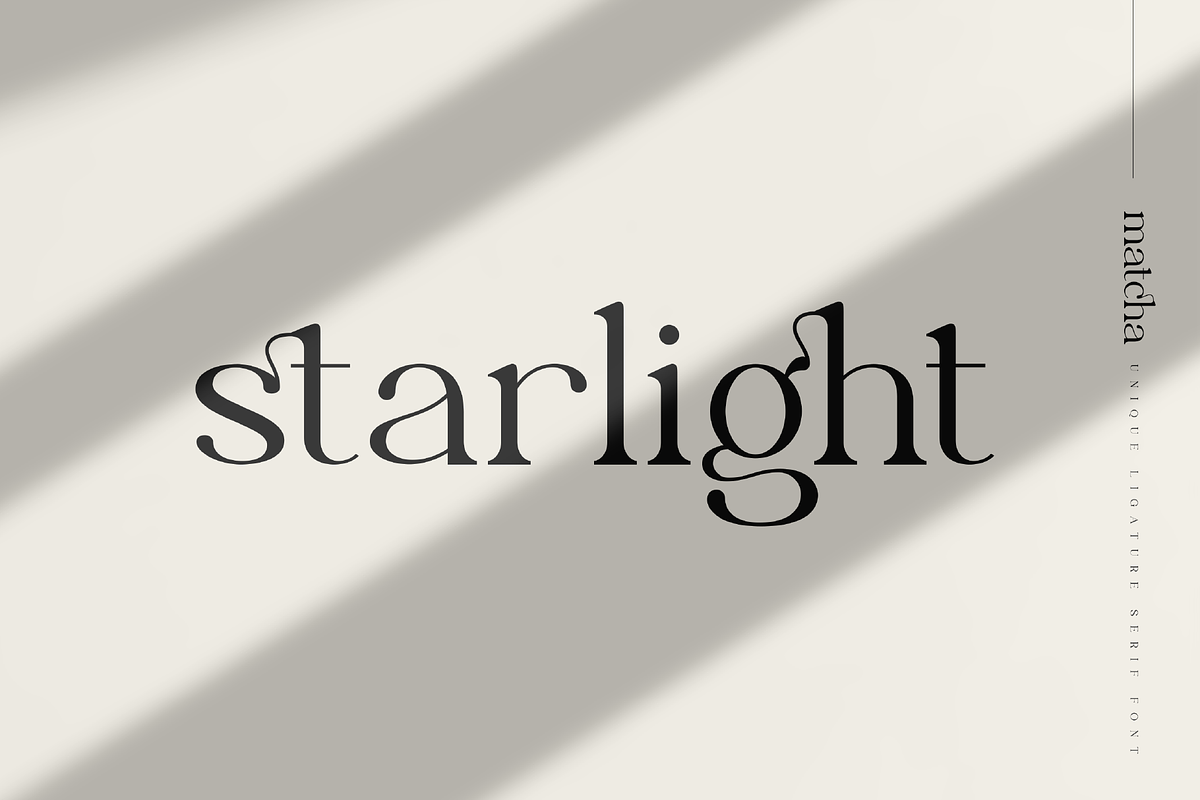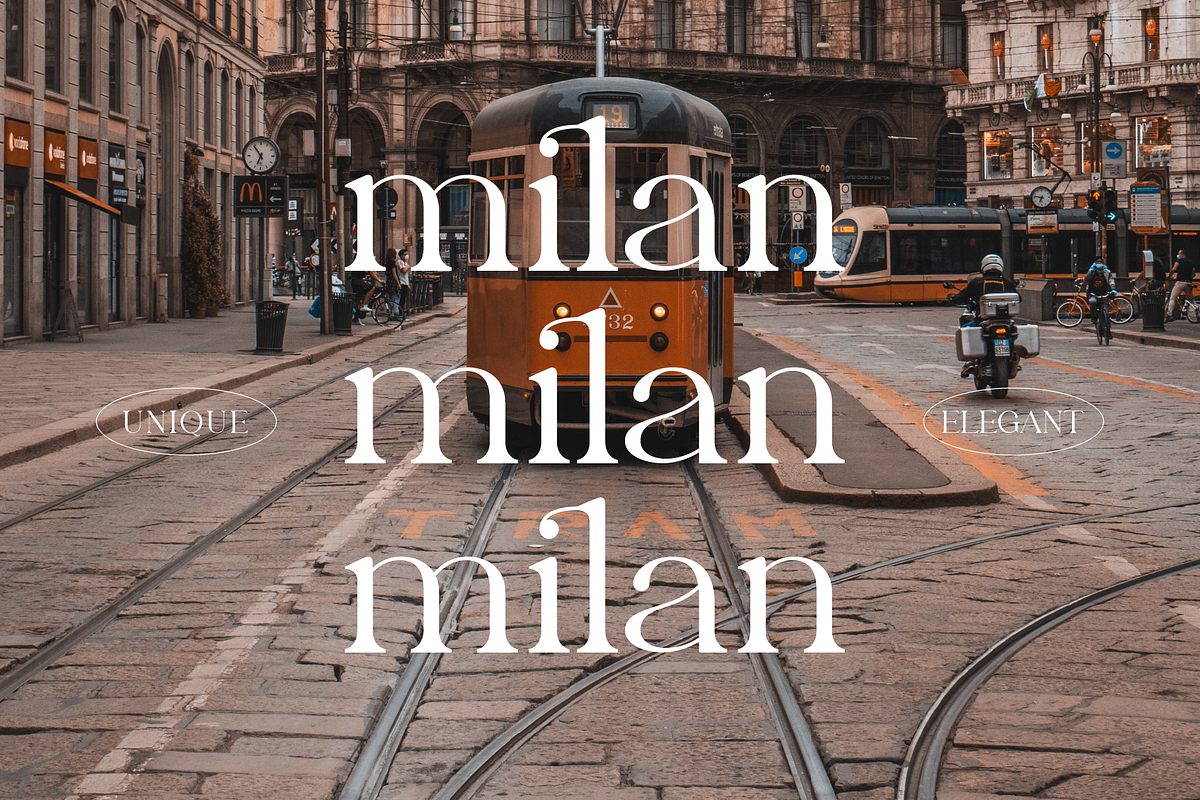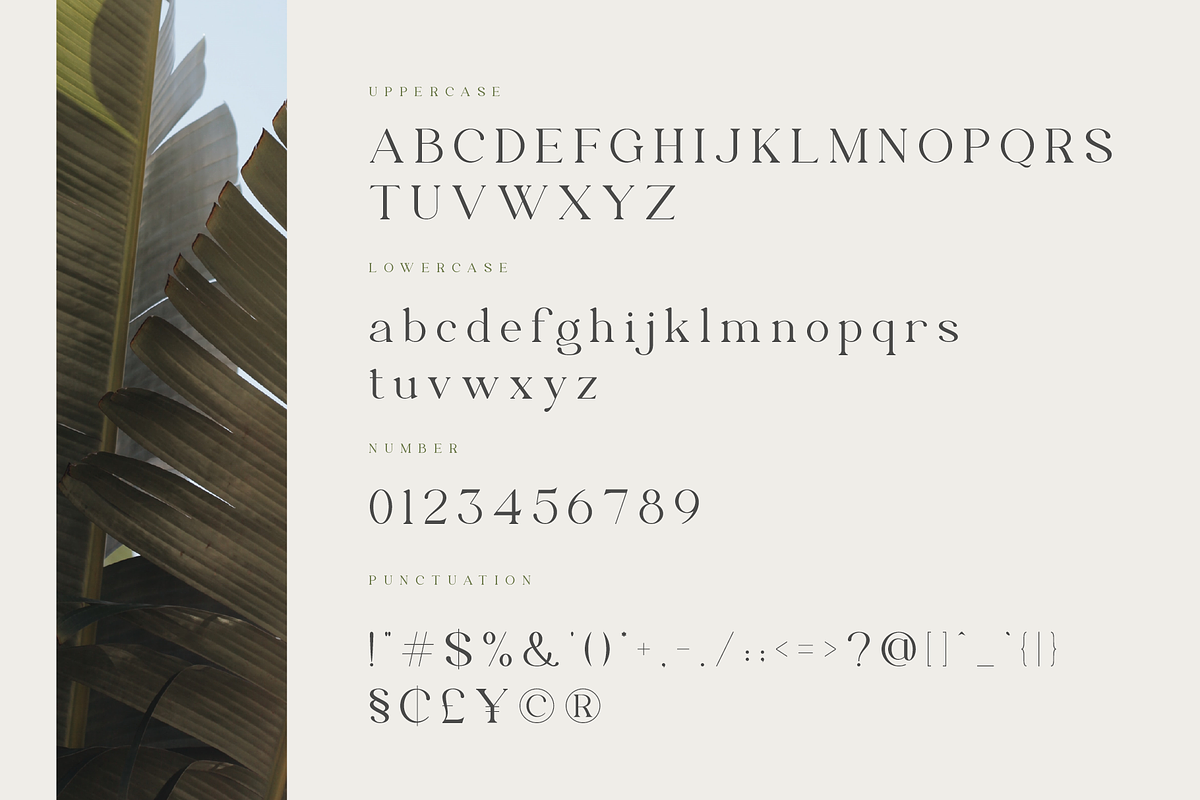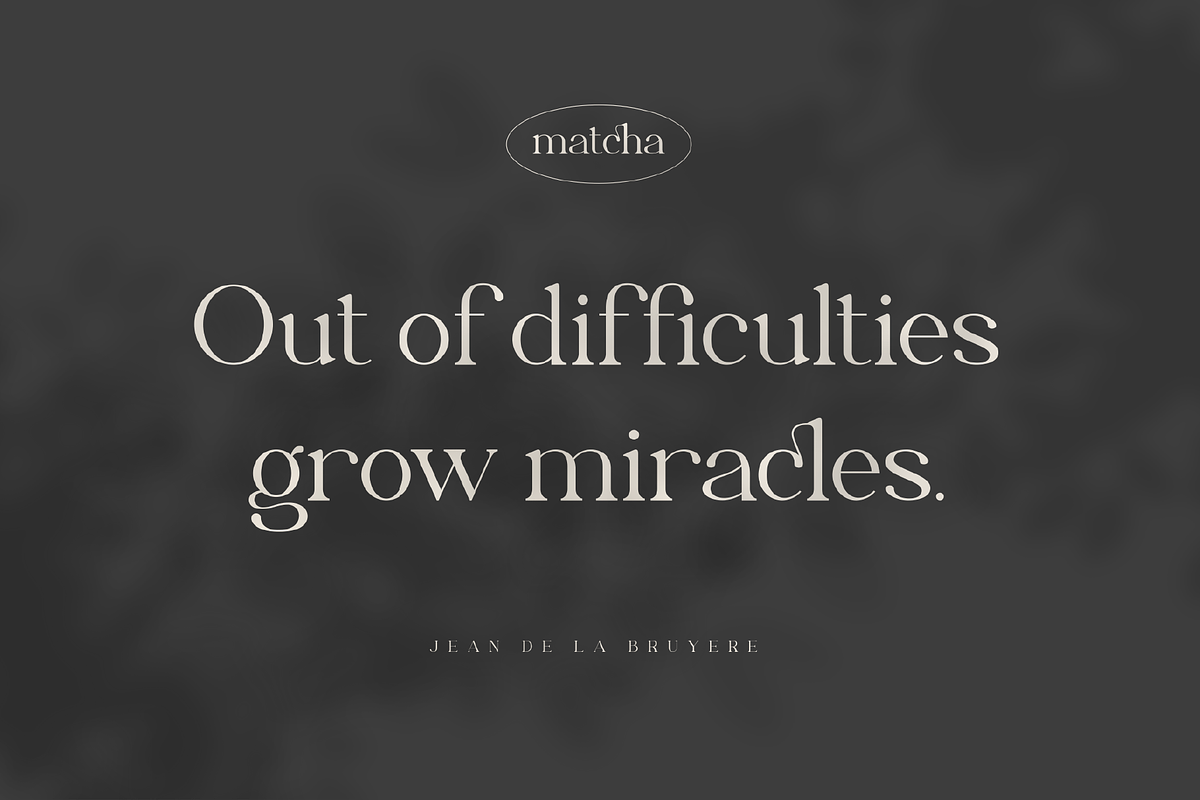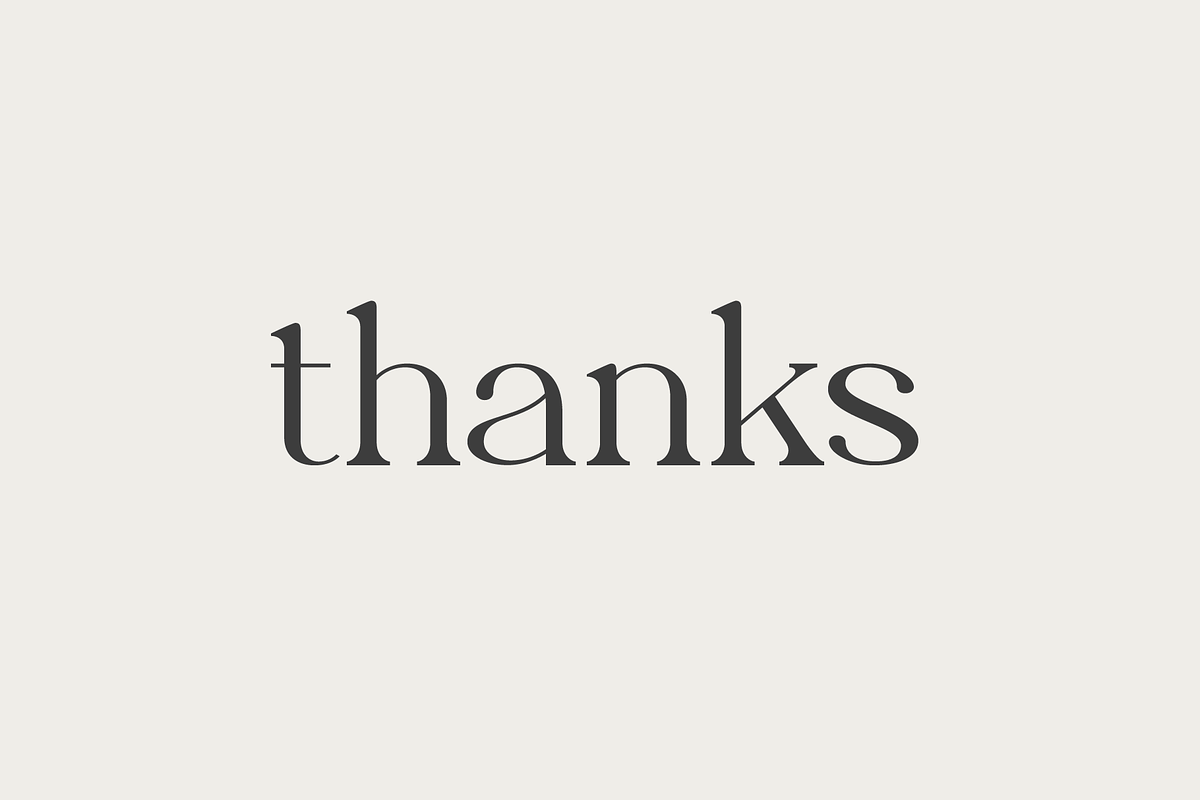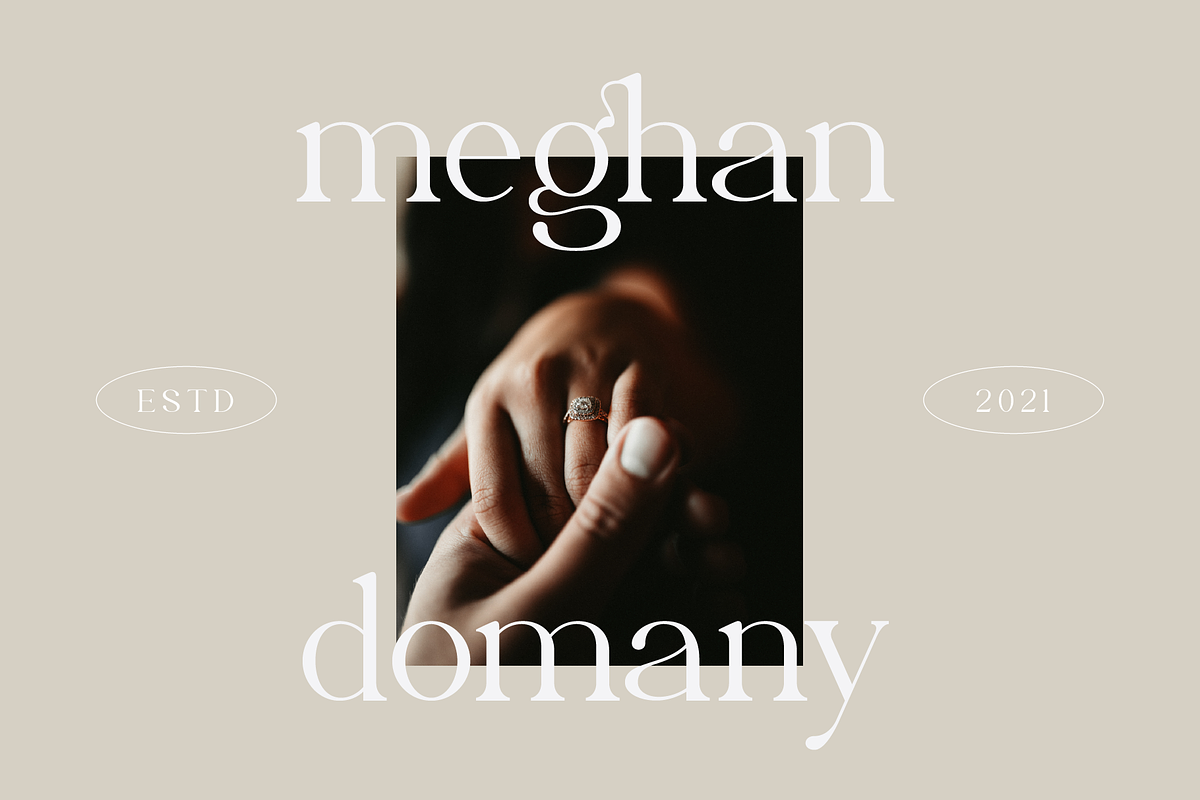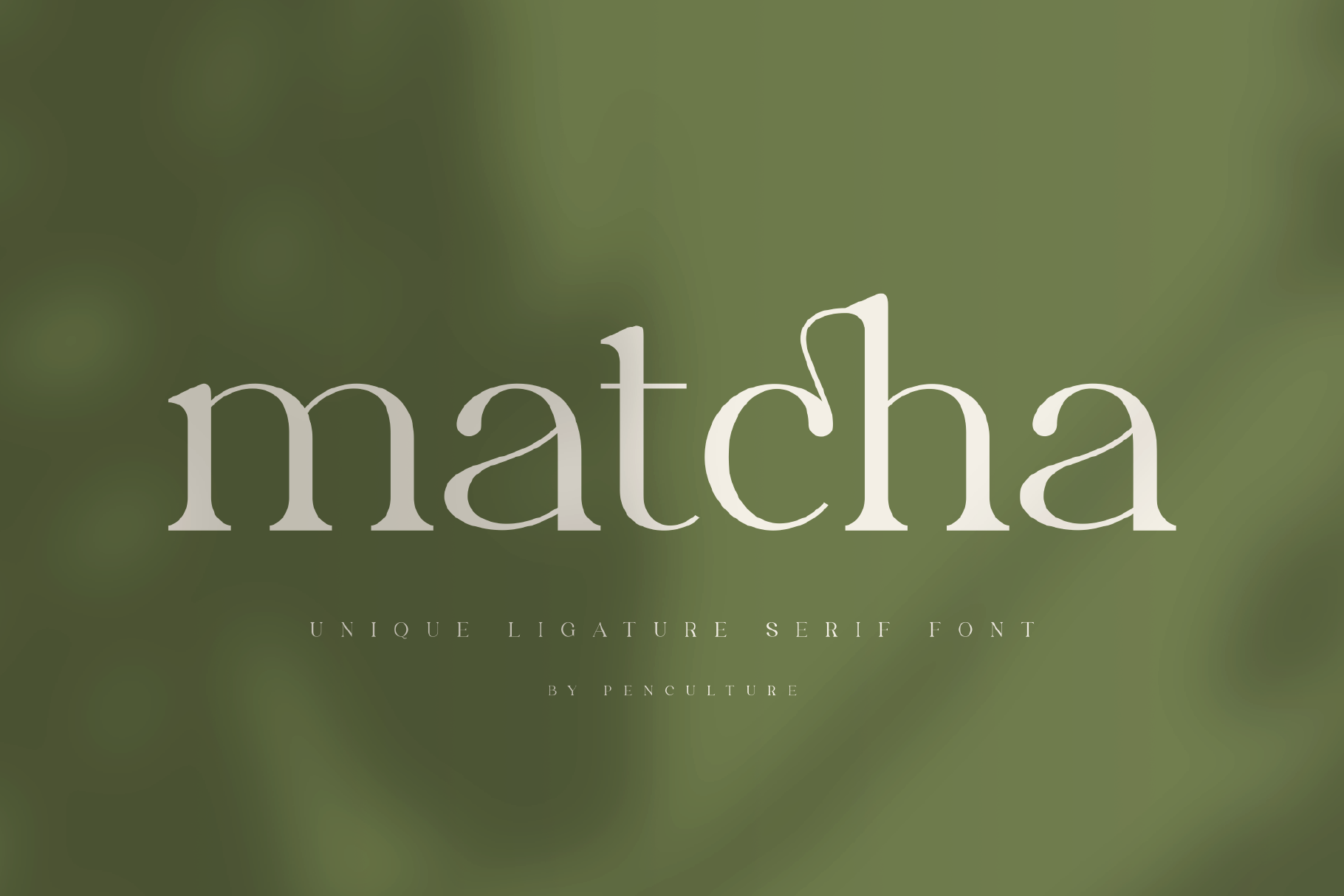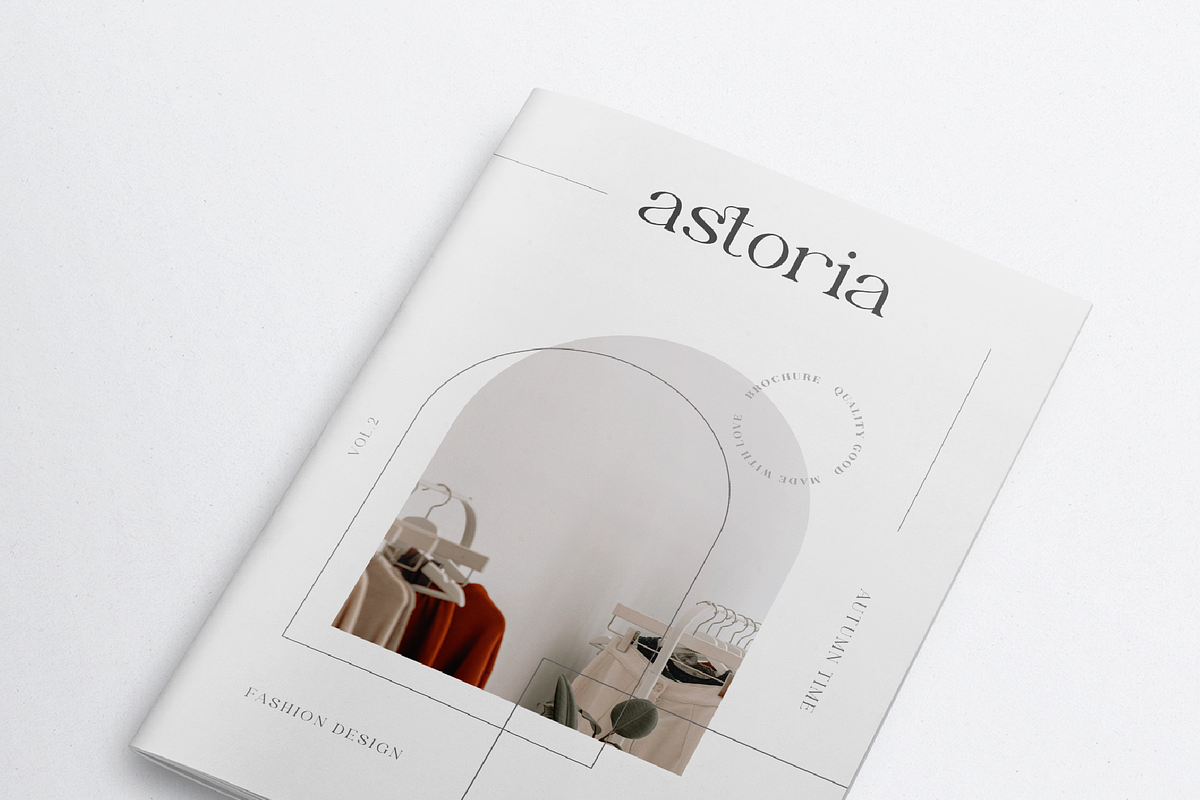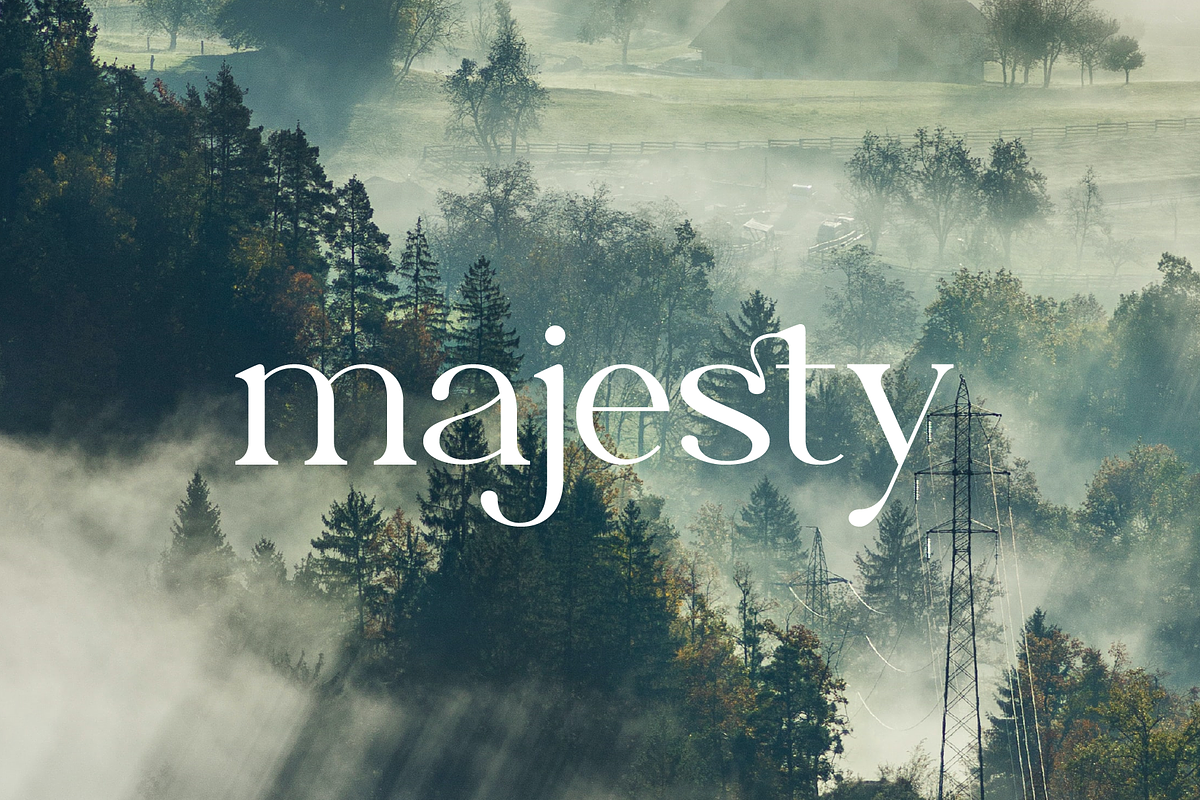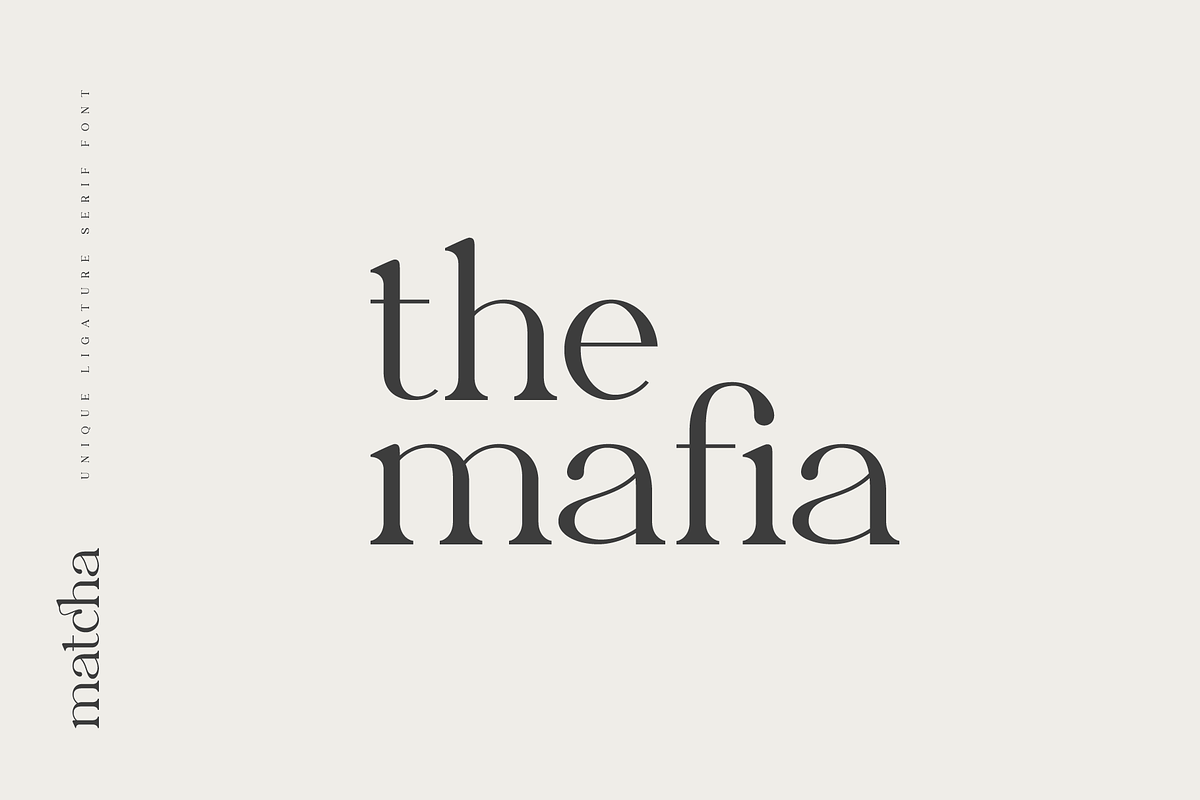
Matcha // Unique Ligature Serif Font
Introducing "Matcha // Unique Ligature Serif Font"
Matcha is modern serif font that come with more than 20 ligature. This font has unique ligature which you can create in your project designs such as branding, logo design, magazines and many more.